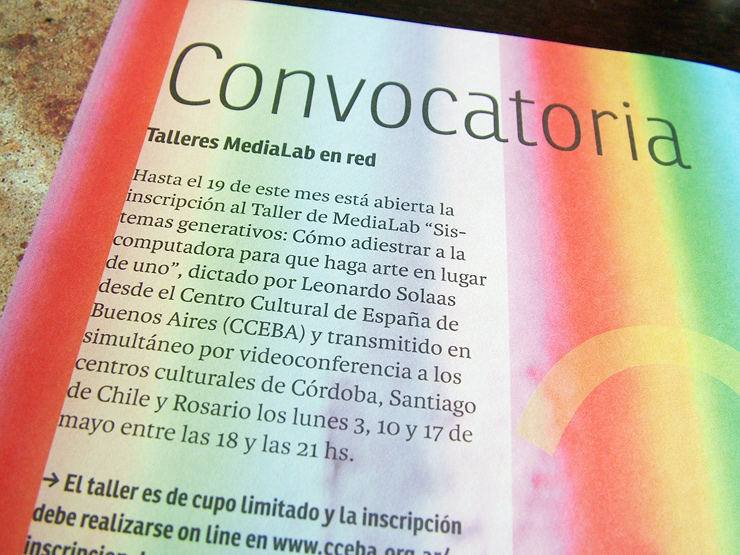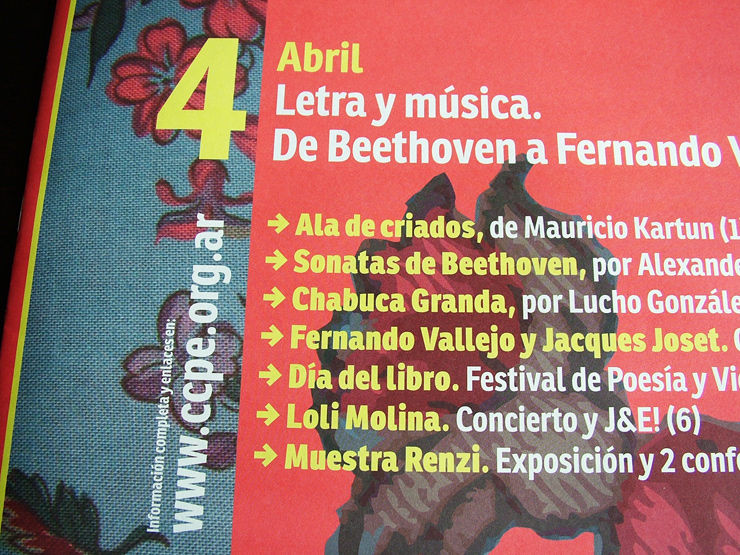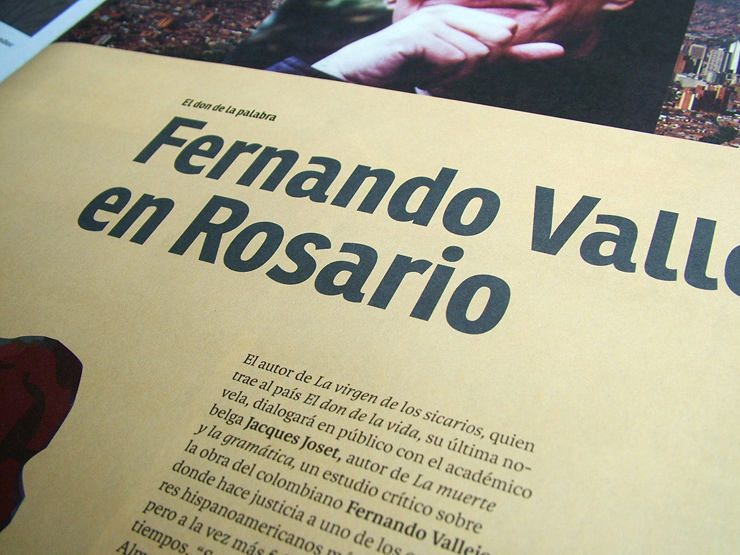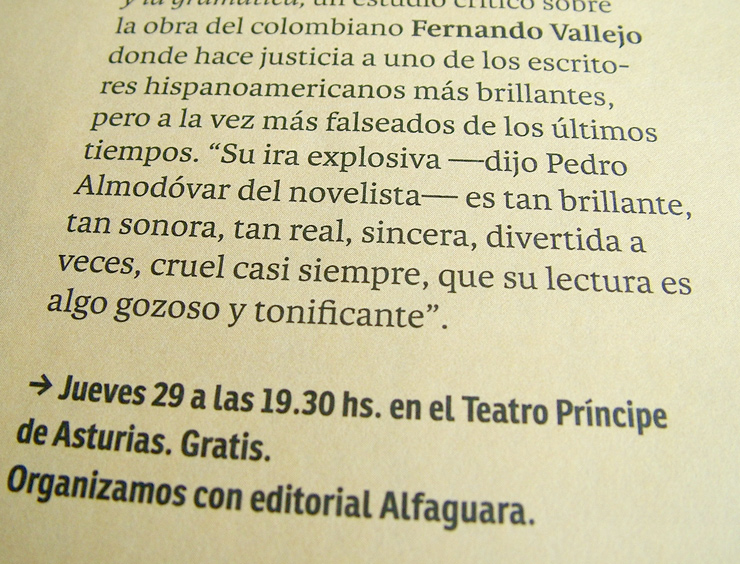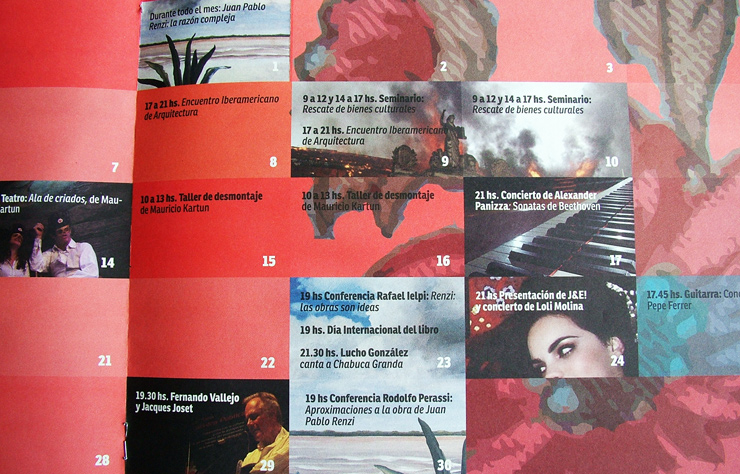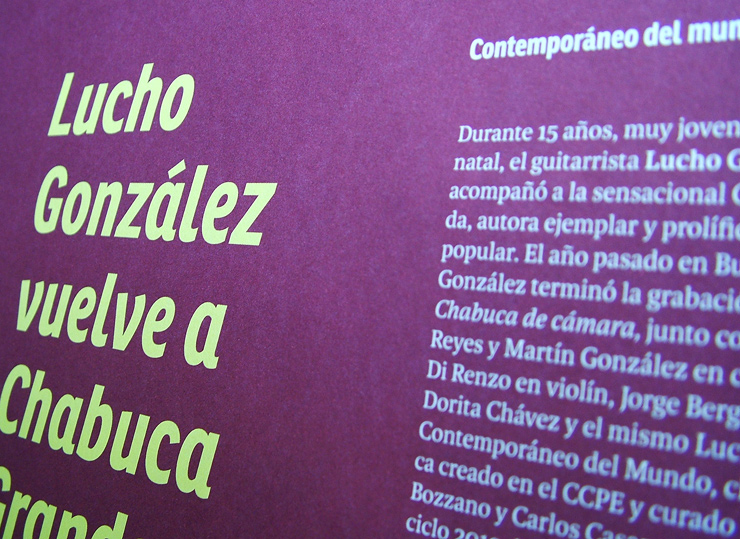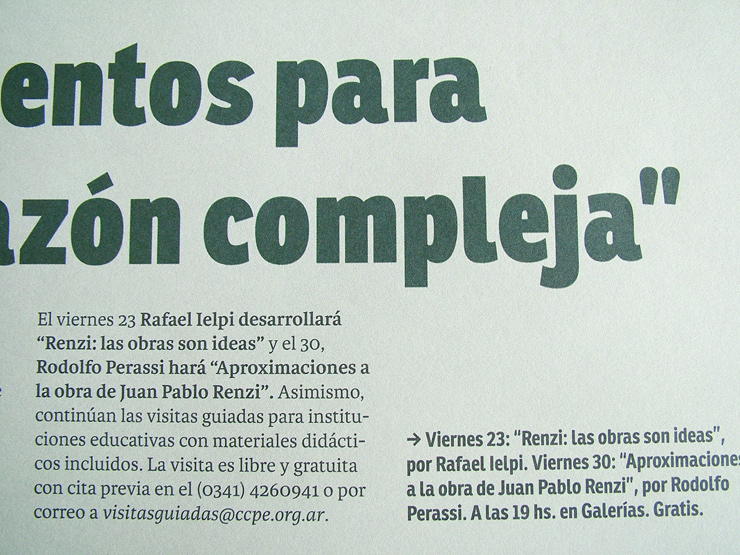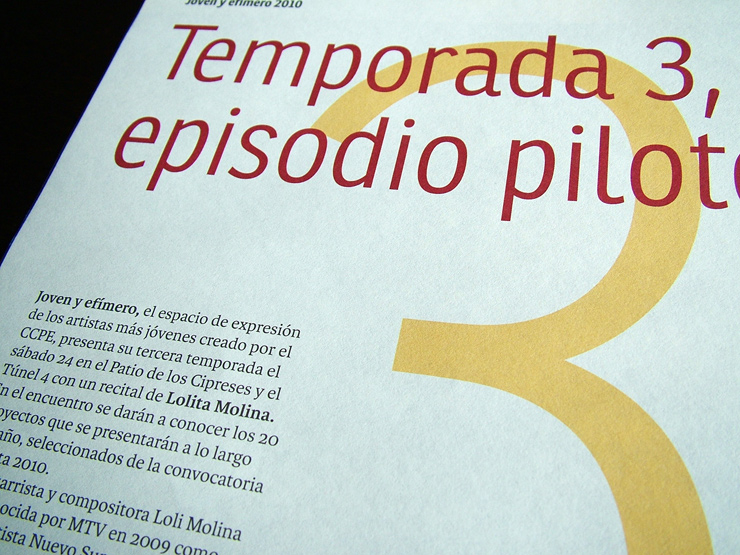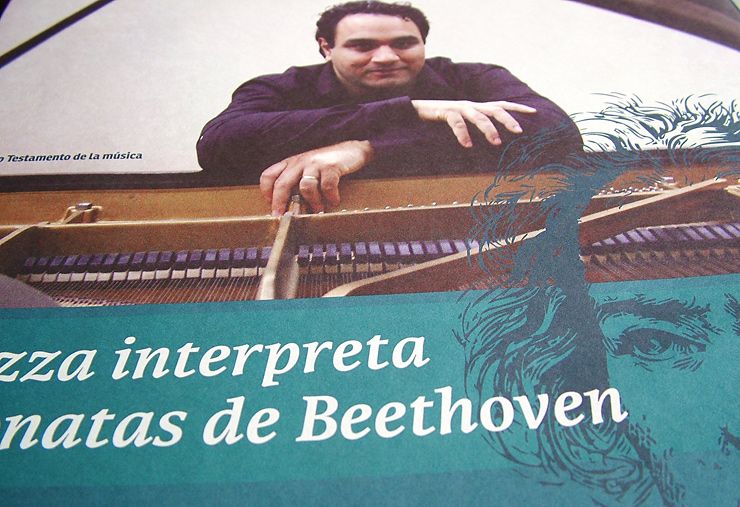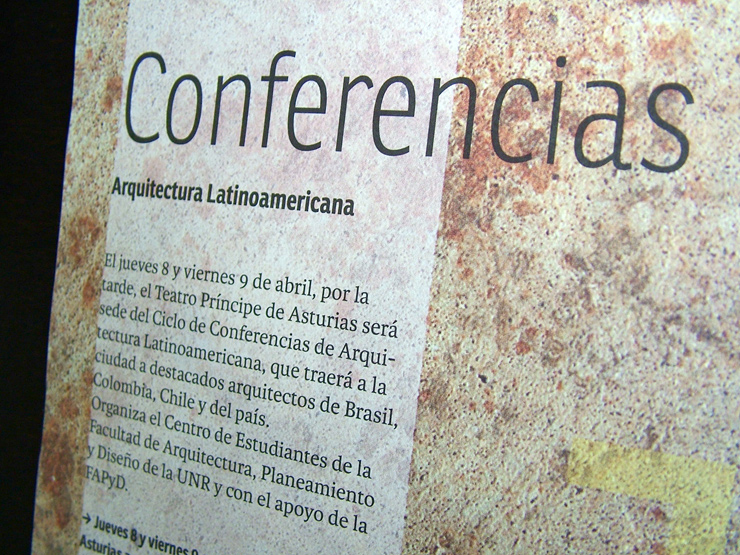
Editorial Bundle in use
Karmina & Ronnia are the main fonts for this beautiful piece from studio Cosgaya. Excellent legibility and outstanding efficiency are common grounds for these two fonts. Although they were developed separately they have been combined with great success in a wide range of publications including England's Big Issue, Findland's Polyteekkari and USA's The Prepaid Press among others.